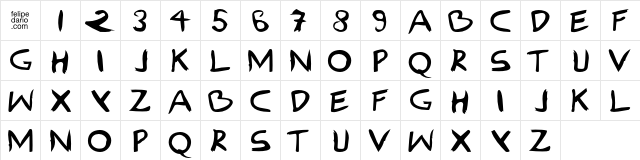
FD Ilhoscript Regular
| Foundry | Felipe Dario http://felipedario.com) |
| Designer | Felipe Dario |
Design Context for FD Ilhoscript Typeface
FD Ilhoscript flows with the natural rhythm of handwritten lettering, making it ideal for designs that call for warmth and personal expression.
Font Pairing: Combine FD Ilhoscript with a simple geometric sans for maximum contrast — the tension between flowing curves and clean structure is a classic typographic pairing.
Pro Tip: Use FD Ilhoscript for short runs of text — names, titles, or taglines. Extended body copy in script faces tires the eye quickly.